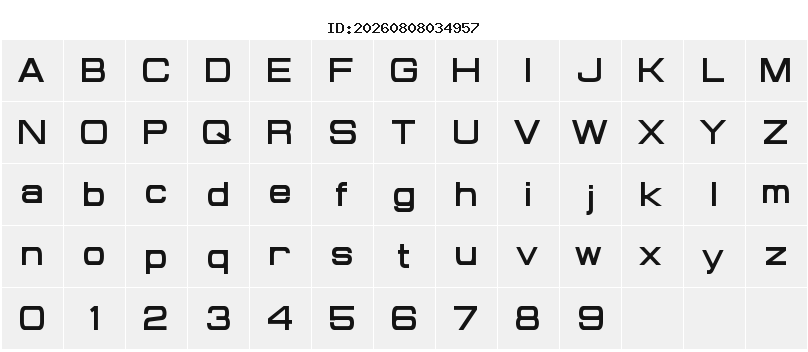
• Font Name: Probert
• Designer: Neale Davidson
About Probert.ttf
Probert.ttf is a modern, elegant sans-serif font designed for ultimate readability and visual harmony. Perfect for branding, headlines, web design, and print materials.